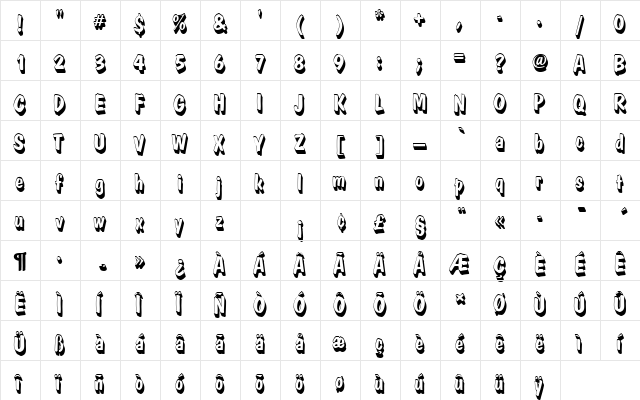
DomCasualDBolSh1 Regular Font Preview
DomCasualDBolSh1 Regular
Design Context for DomCasualDBolSh1 Typeface
DomCasualDBolSh1 is a composed and adaptable typeface that performs quietly and consistently across a wide range of design contexts.